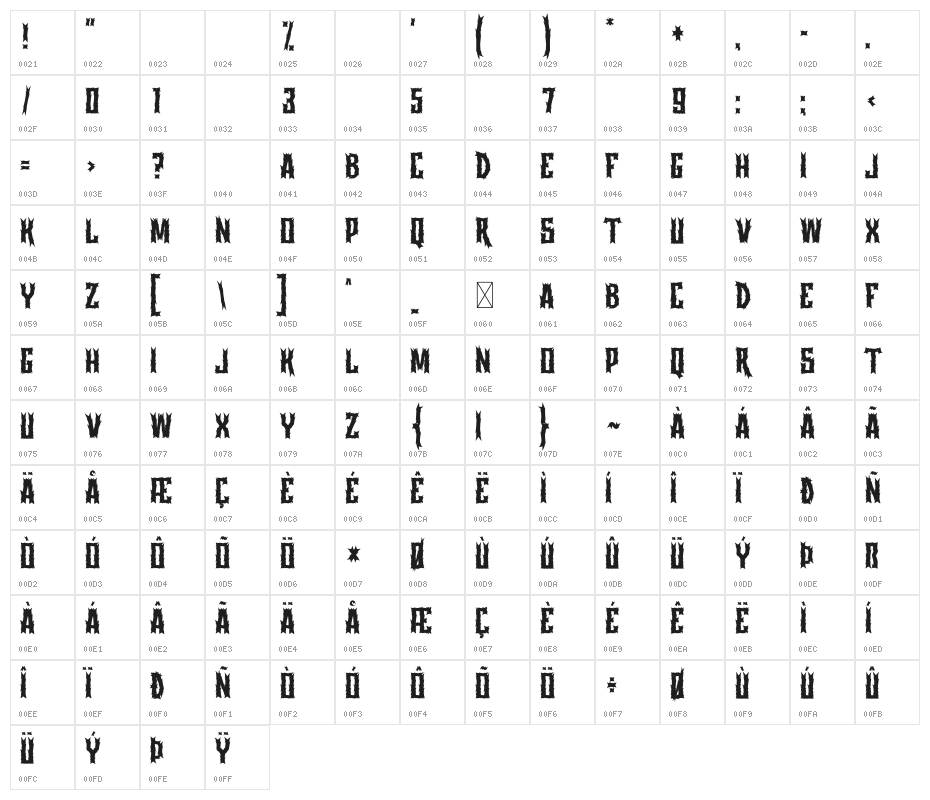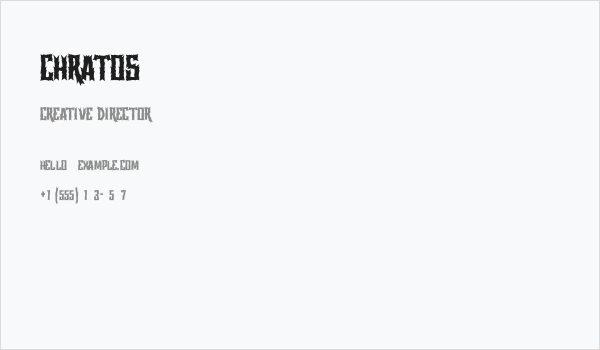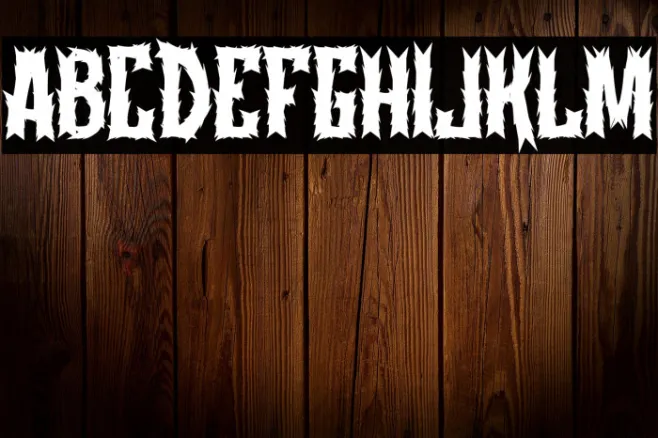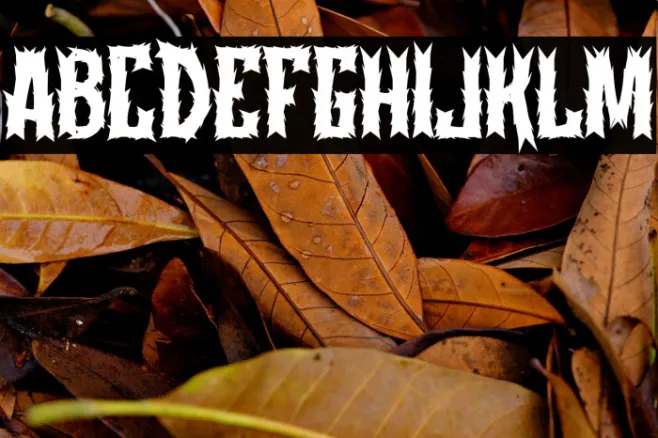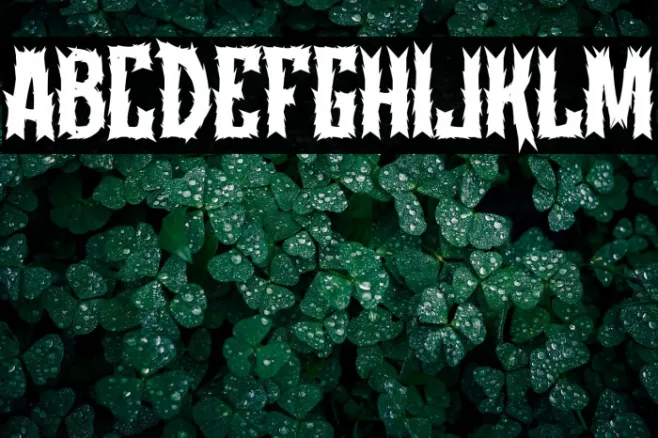
Chratos Font
Chratos Description
This font features a bold and jagged design, reminiscent of sharp, thorn-like edges. Each character is crafted with a rough, textured appearance, giving it a dynamic and aggressive feel. The uppercase and lowercase letters maintain a consistent style, with angular and pointed strokes that create a sense of movement and intensity. The numbers and special characters follow the same aesthetic, ensuring a cohesive look across all glyphs. This font's unique style makes it stand out, ideal for projects that require a strong visual impact.
| Proposed Projects | Perfect for horror-themed designs, edgy posters, album covers, and video game graphics. |